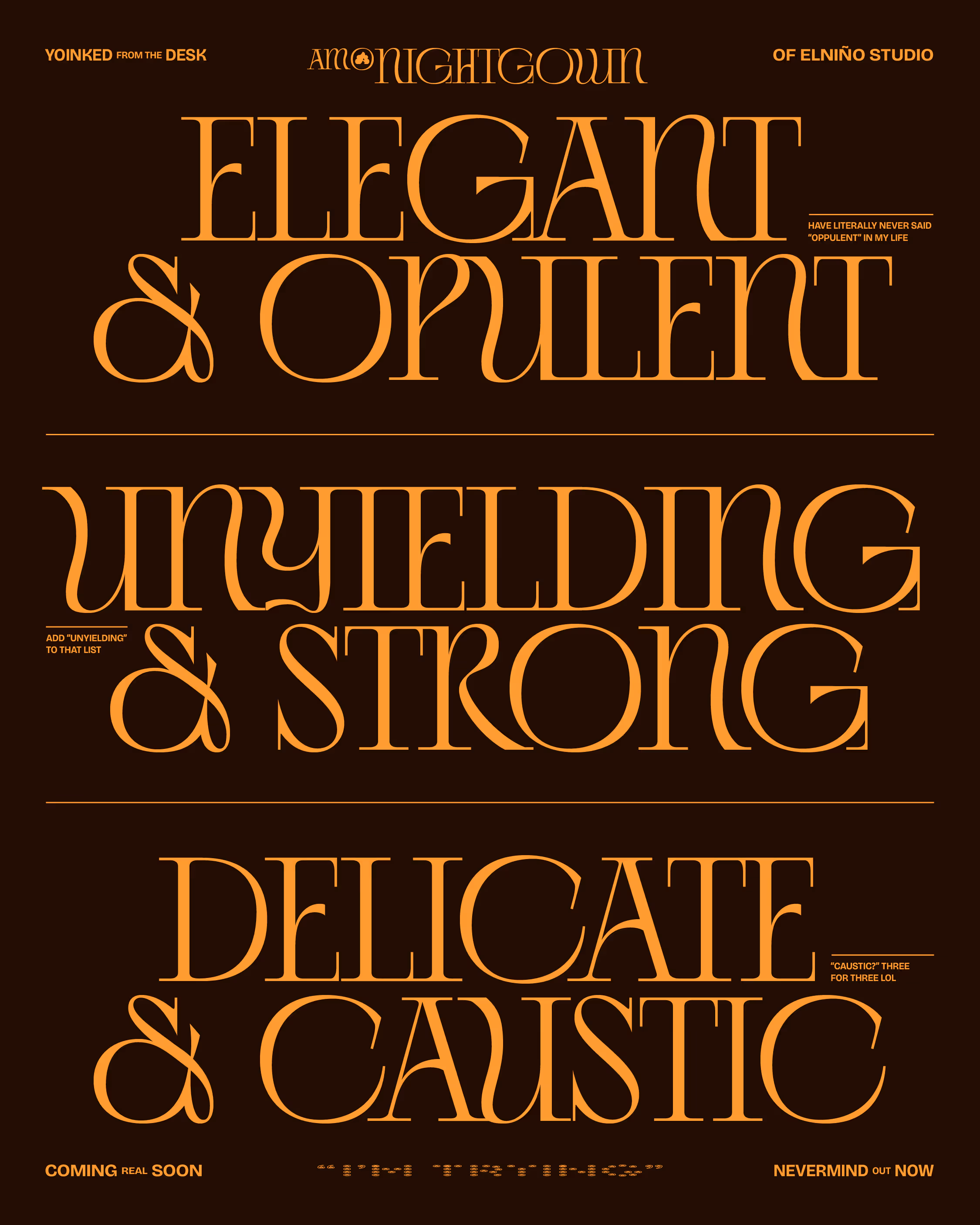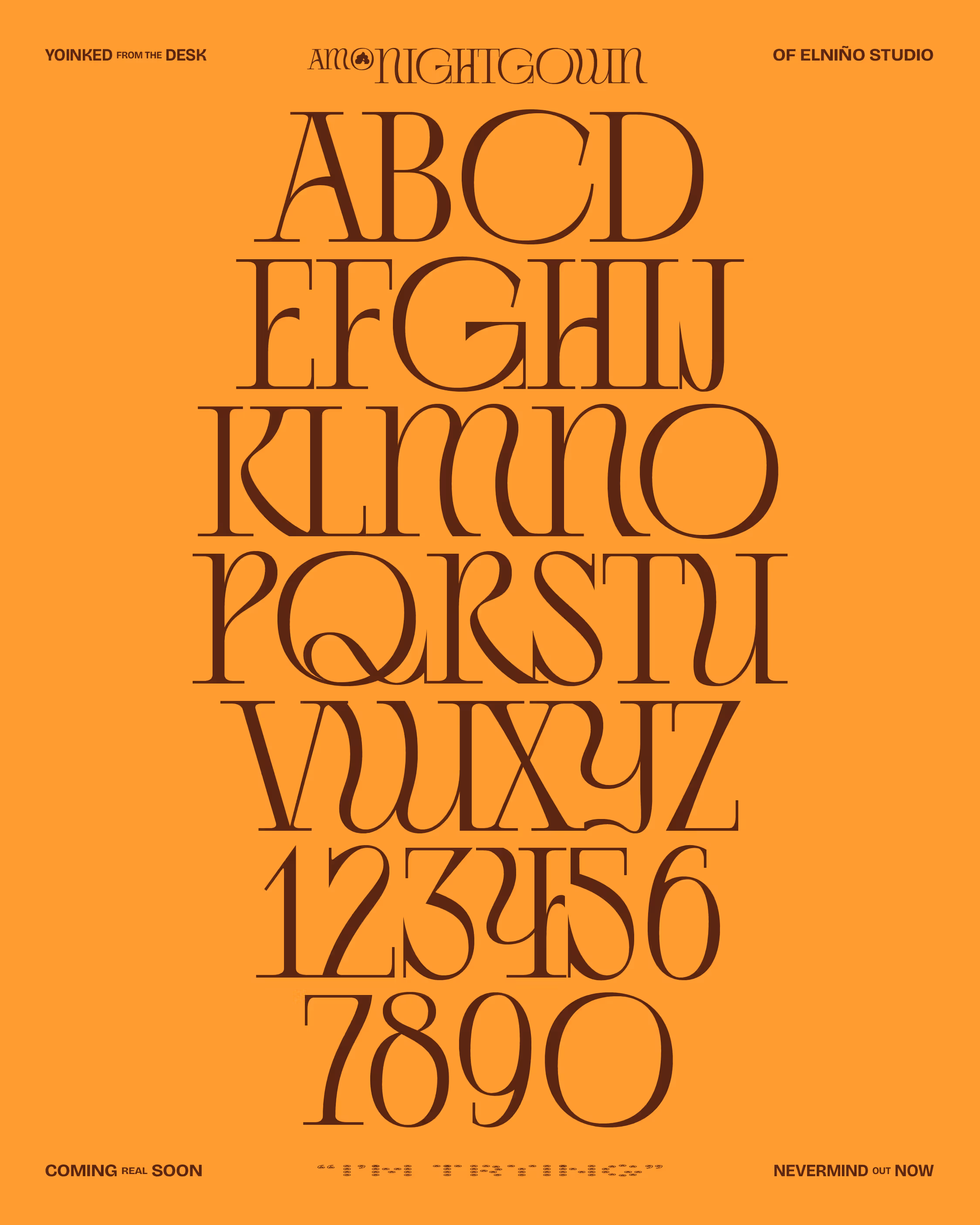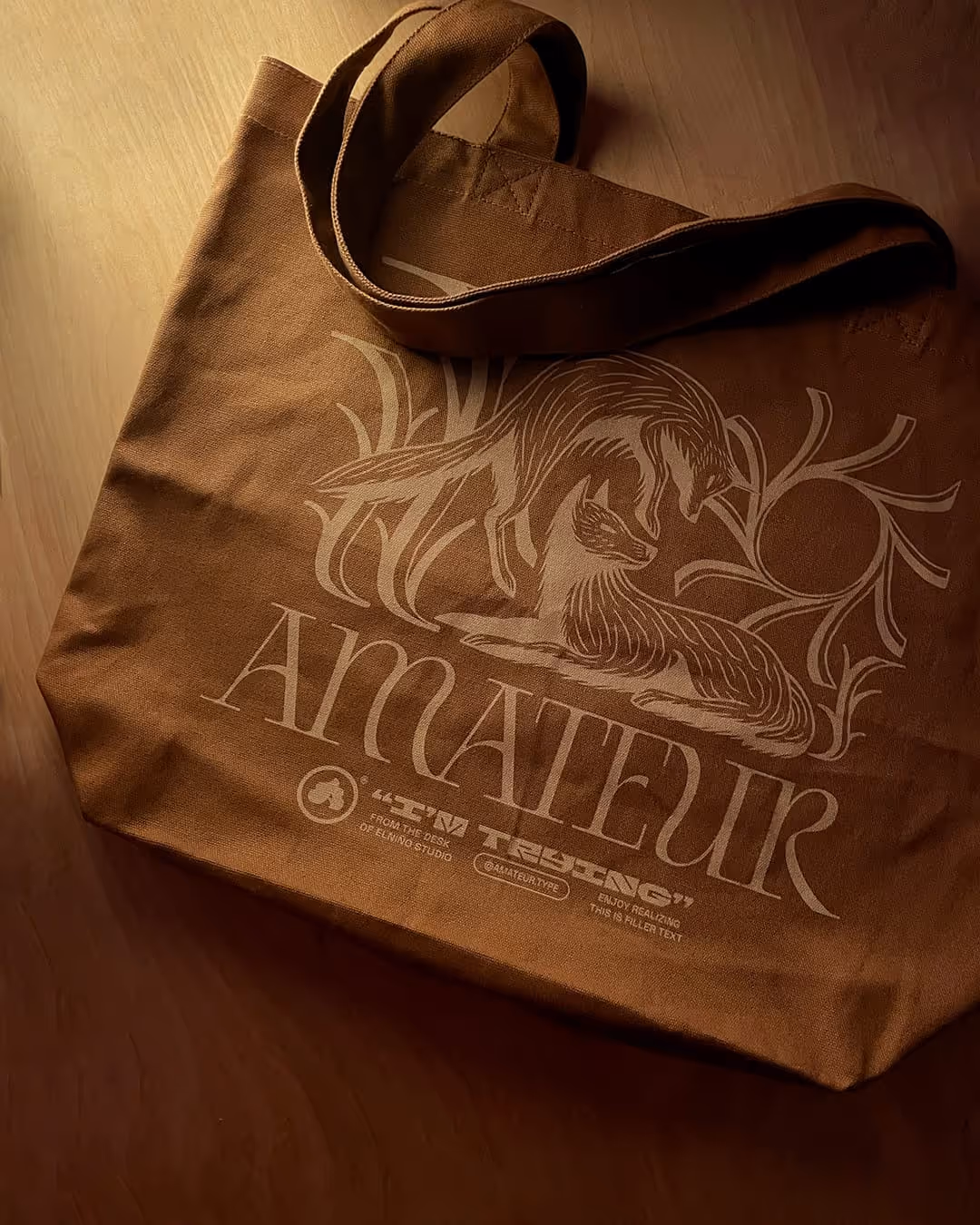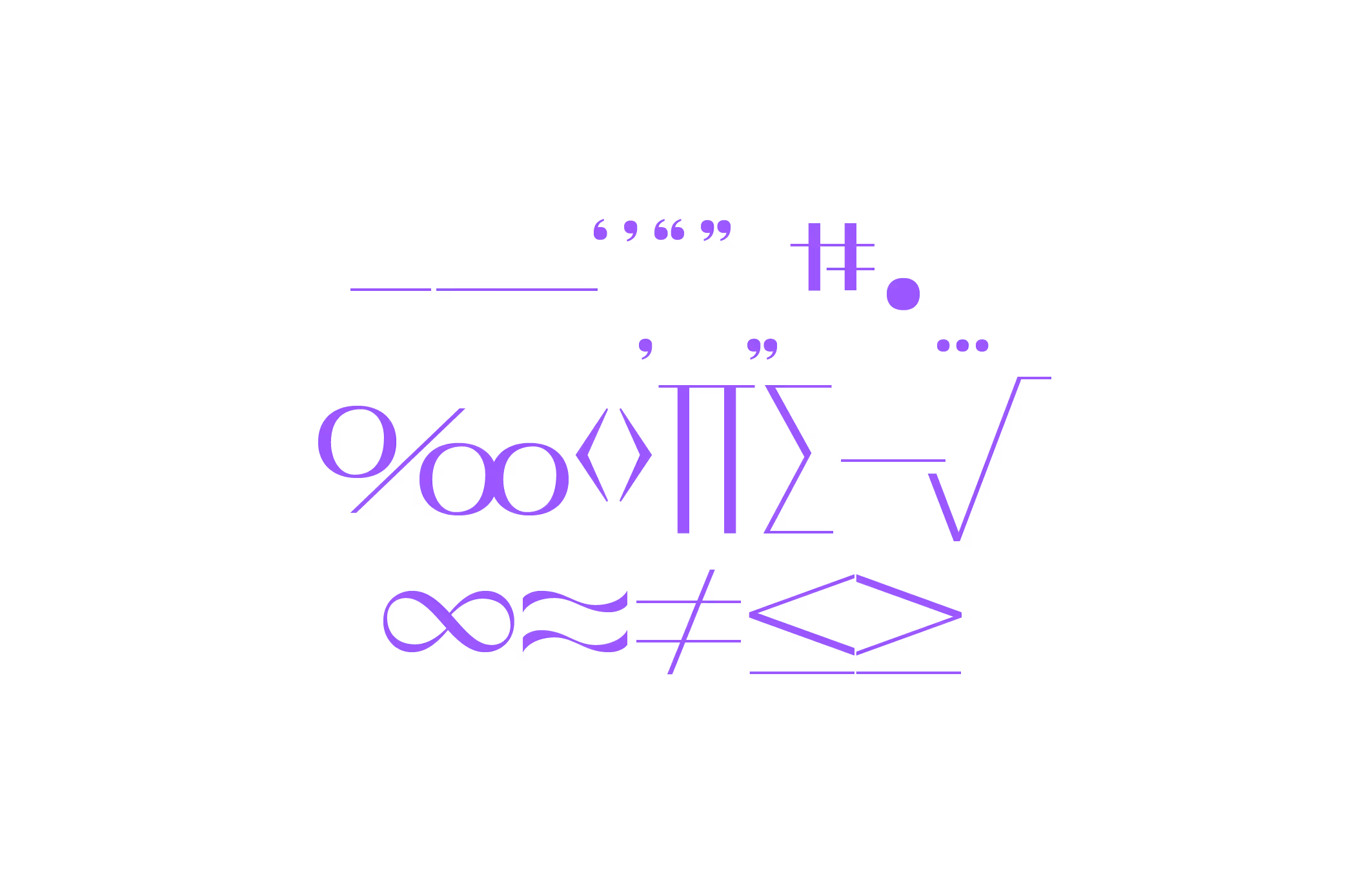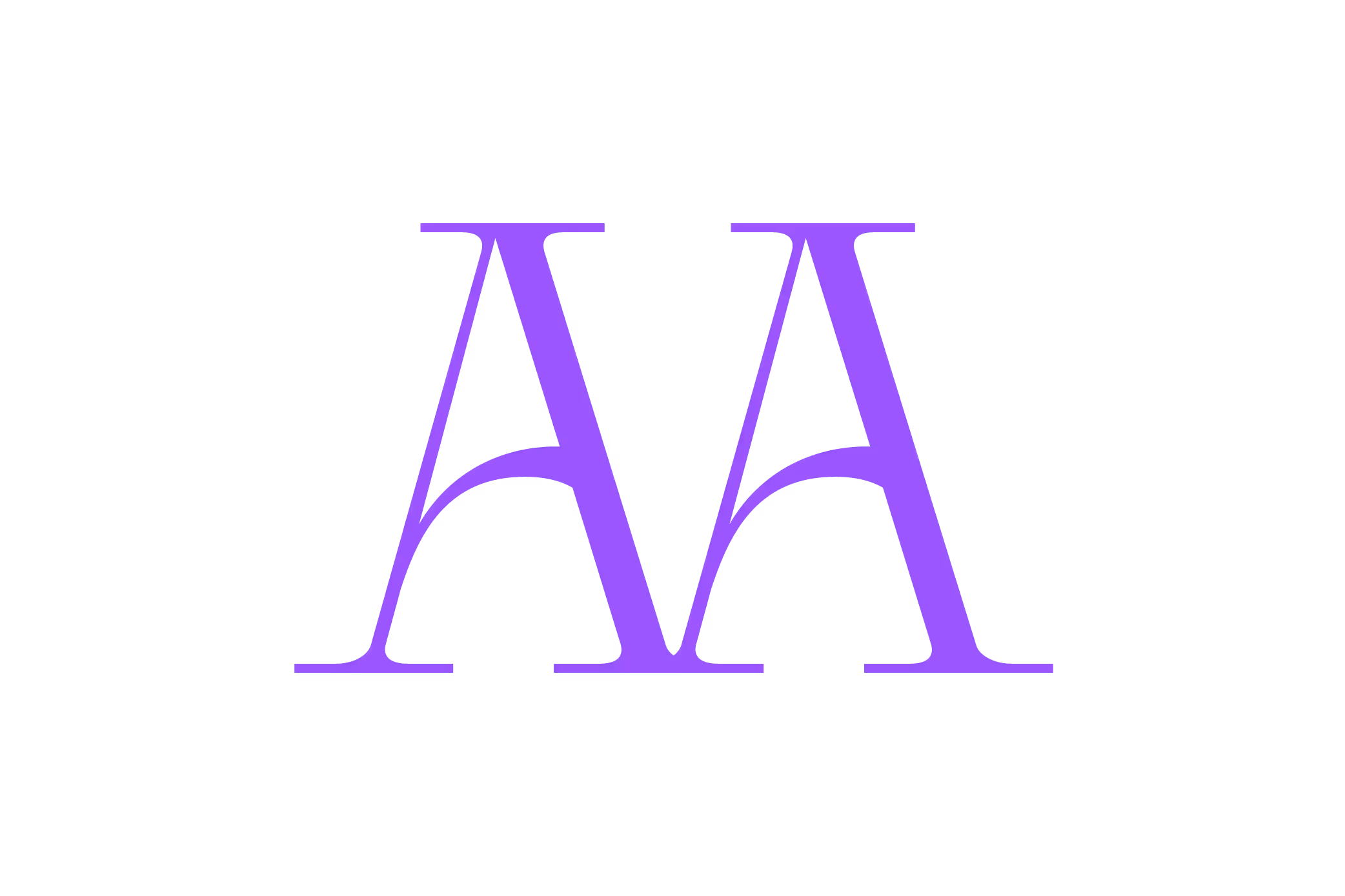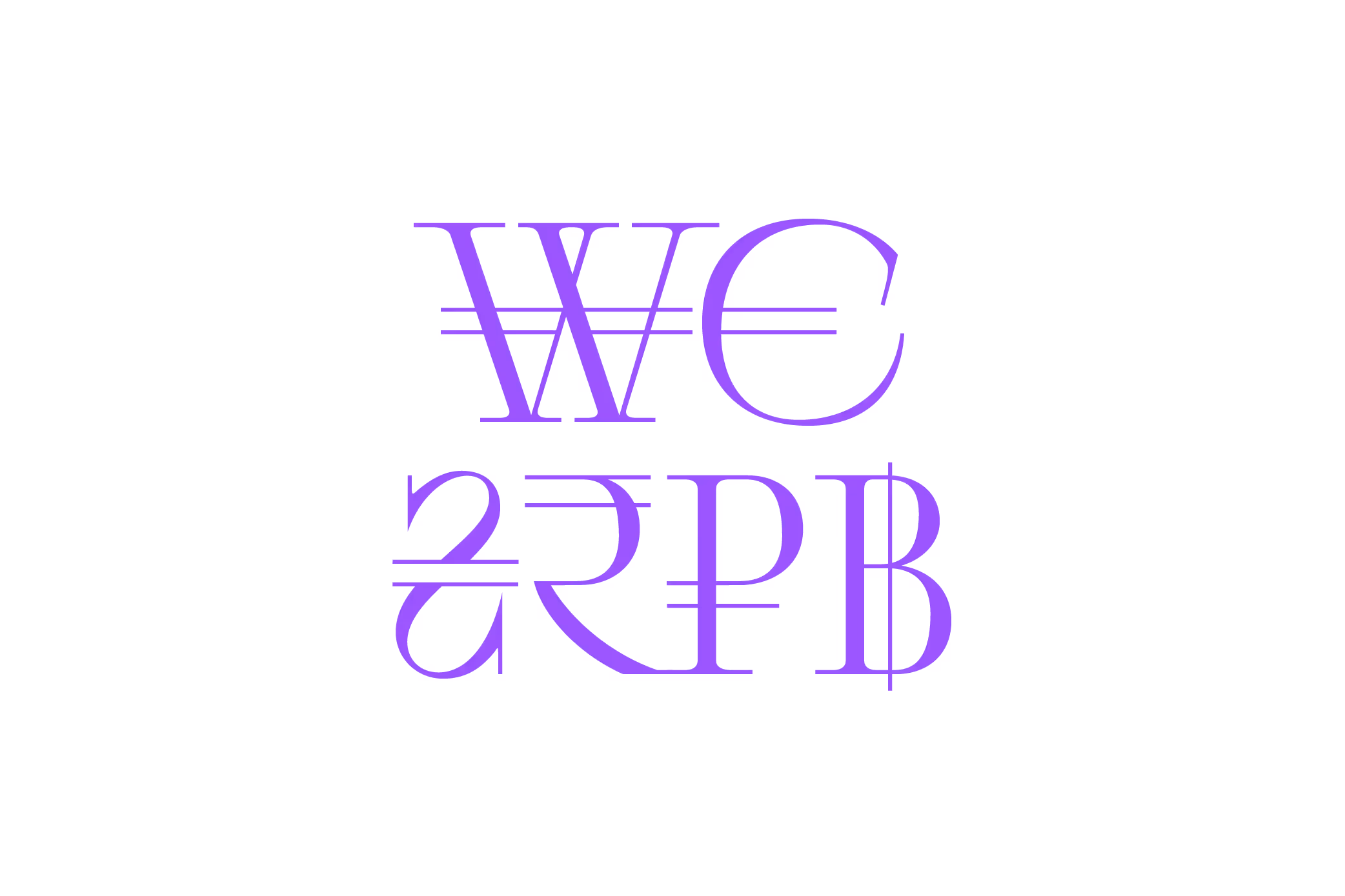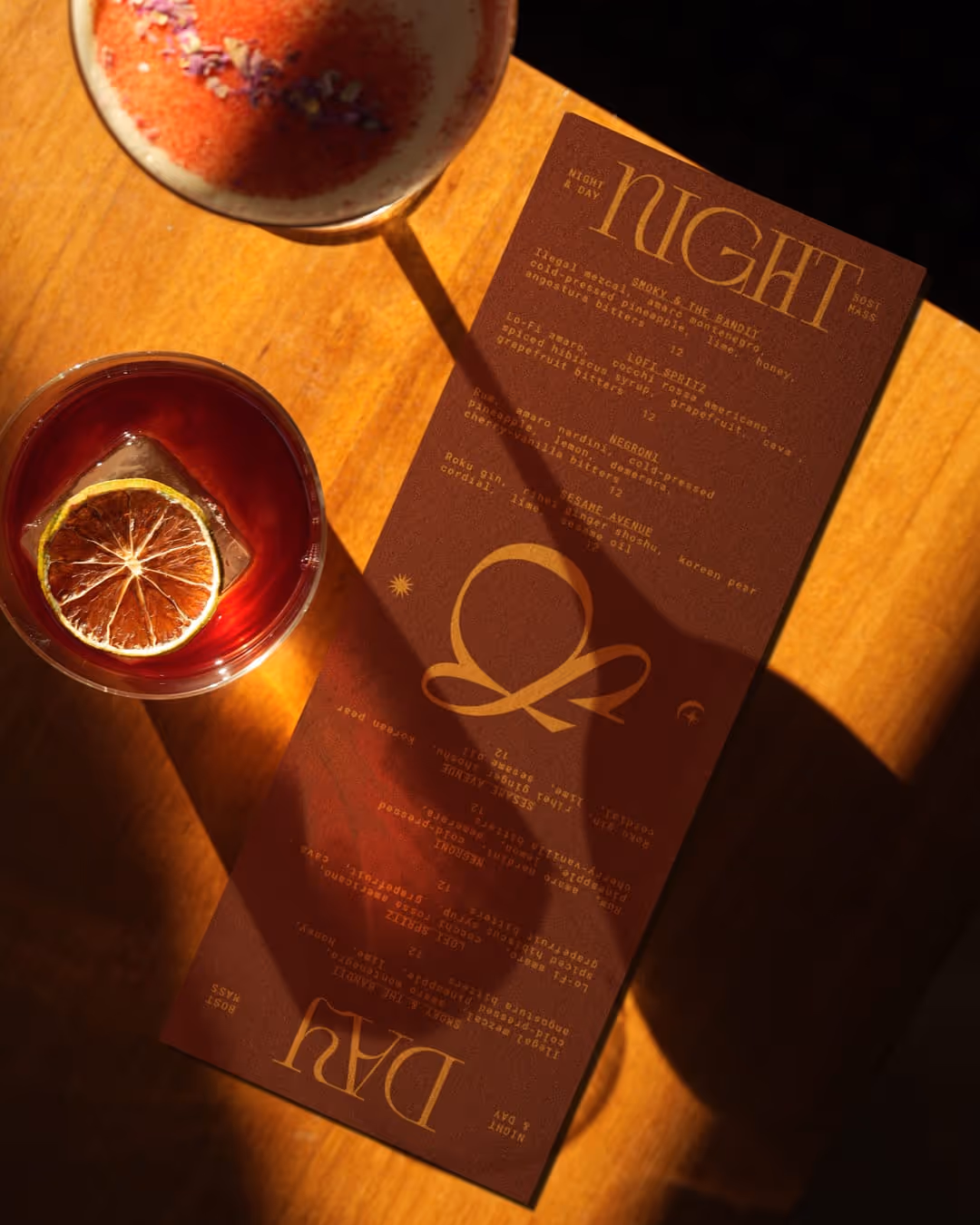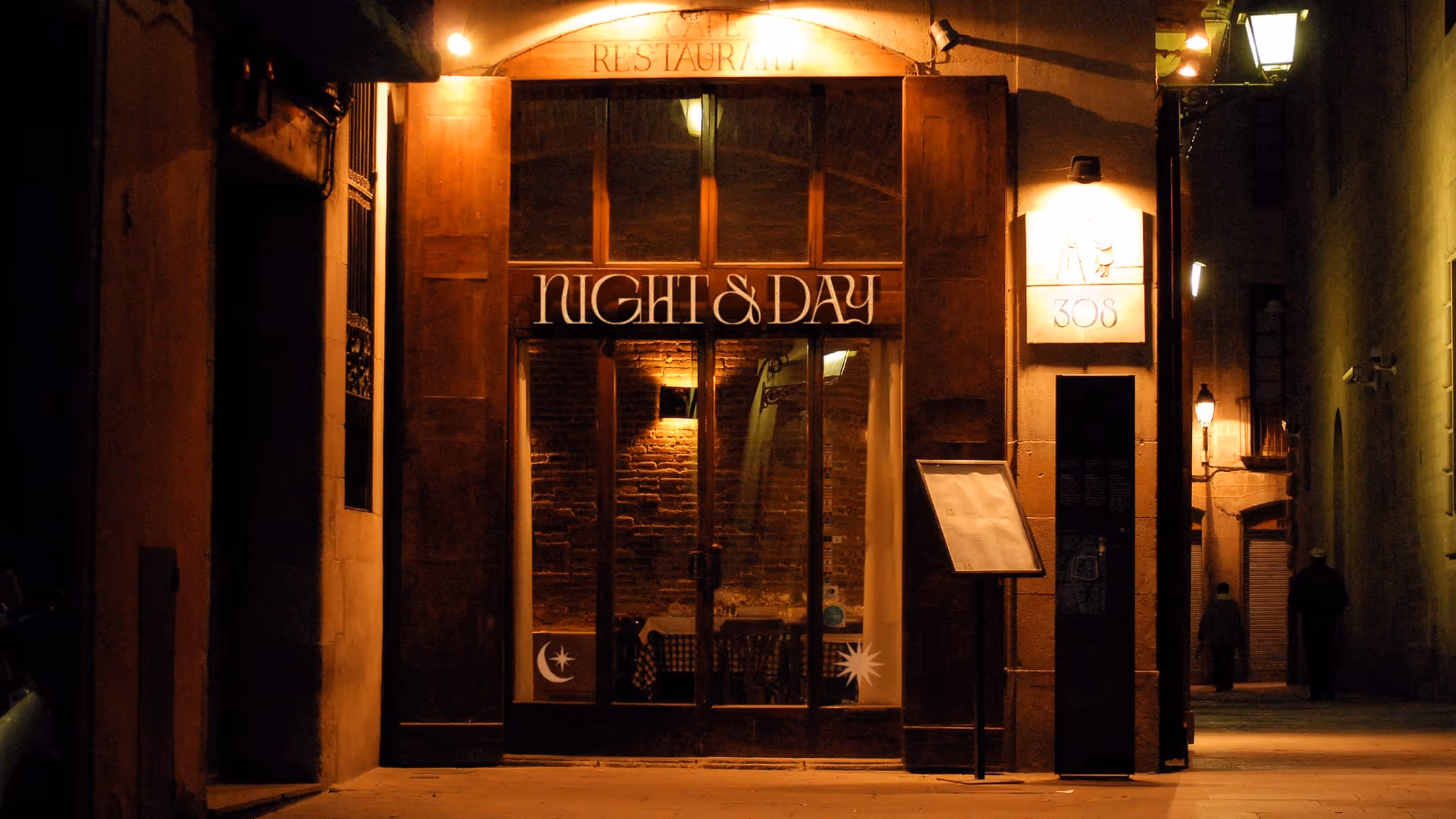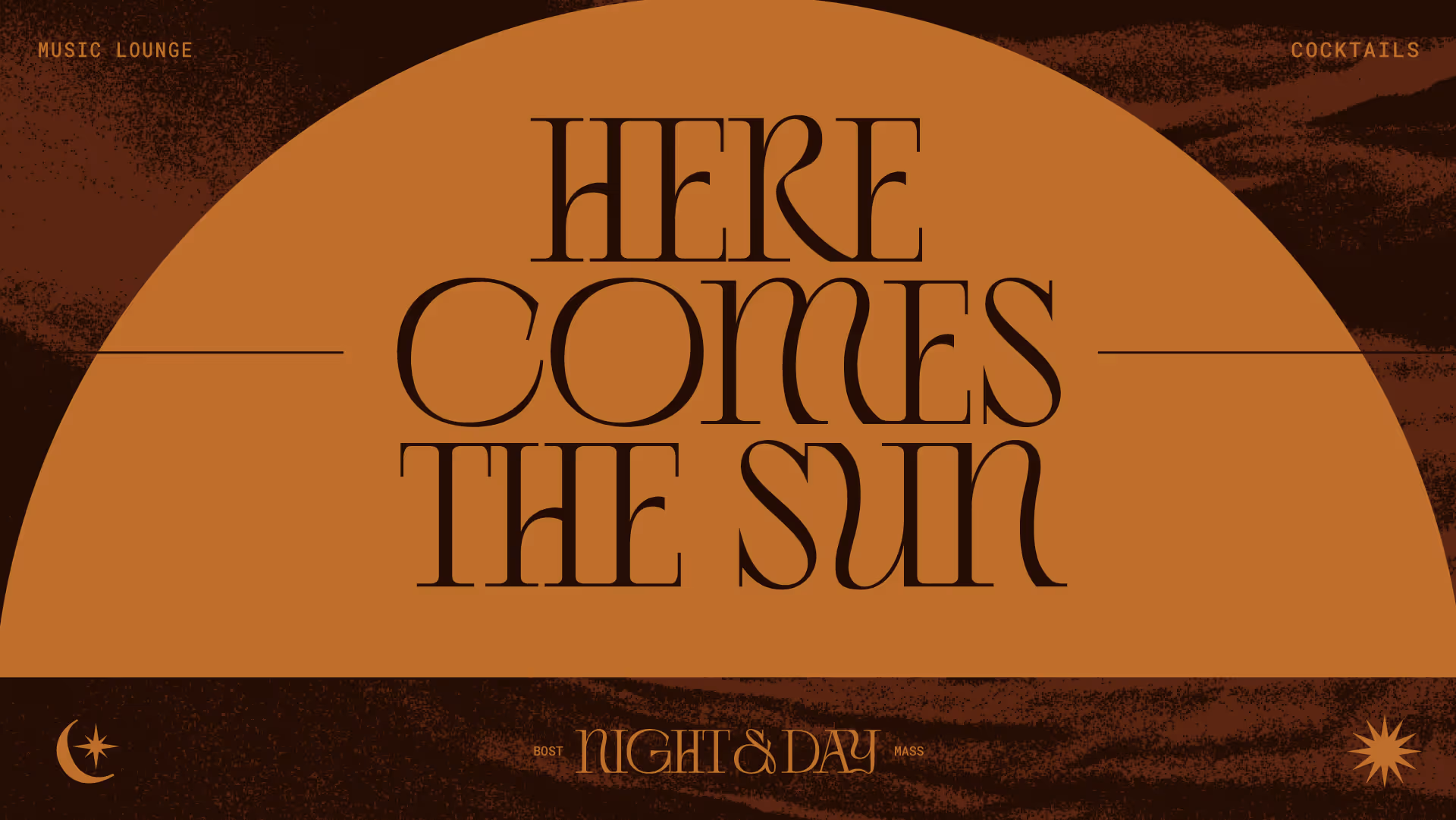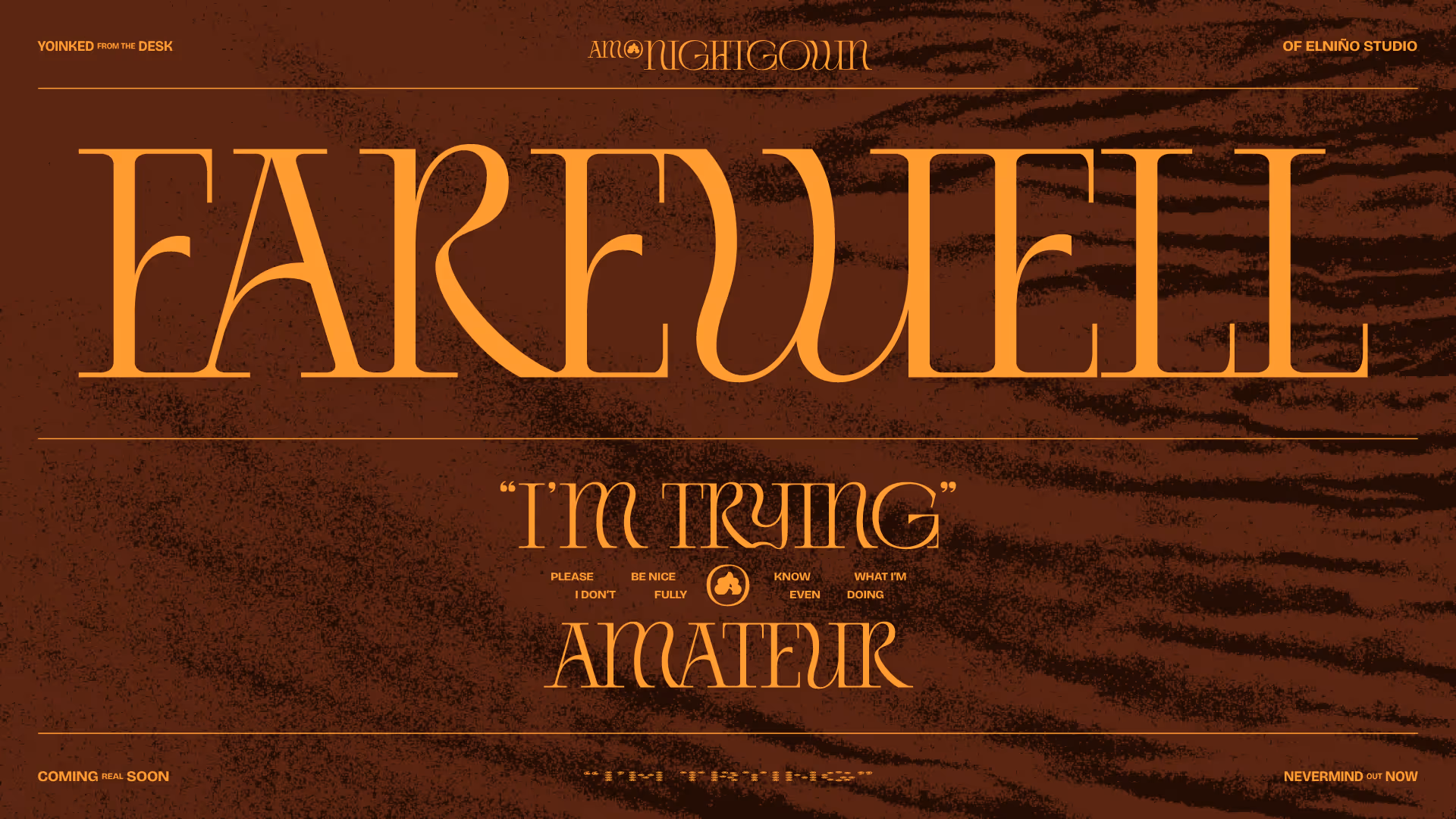
Nightgown
Pajamas
In another world, the name for this font could have been, Pajamas. Could you imagine that? Like, just sitting above this block of text? Anyway, this font came from an unused hospitality concept back in 2023. I can't say for sure, but based on how much I burned the midnight oil back then, I most likely was in my pajamas.
Uppercase
Basic Latin
Latin-1 Supplement
Latin-Ext. A + Ext. Add.
Punctuation + Math Operators
Ligatures
Currency
Arrows
Alt. Ampersand
Yes, &
As in, yes, I designed this identity purely to show off the ampersand – and?